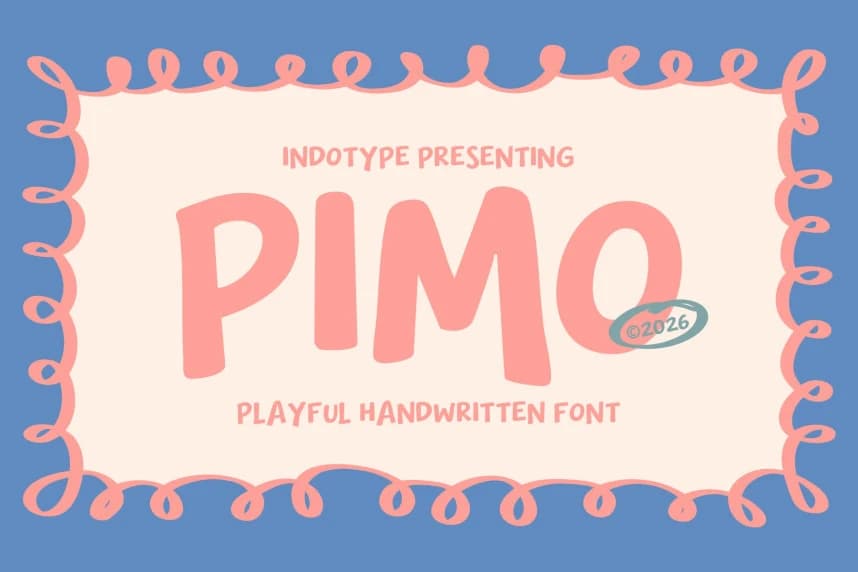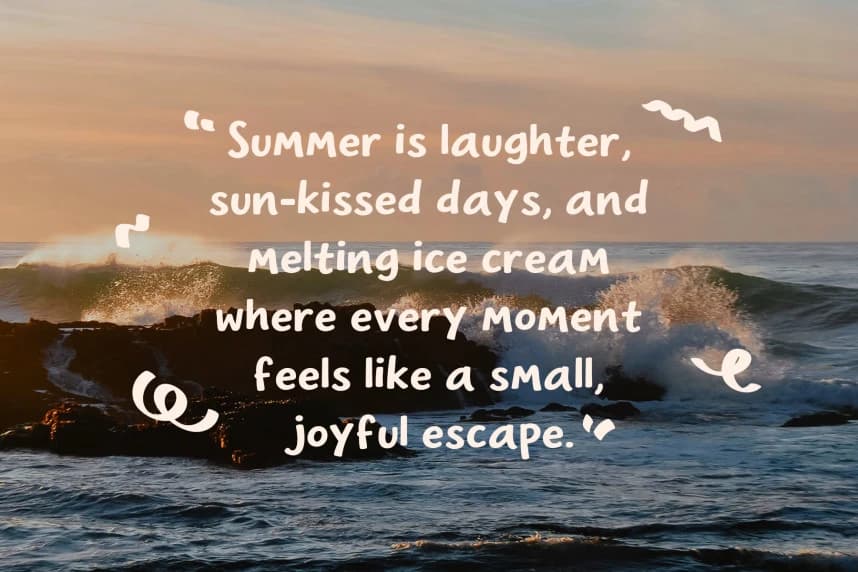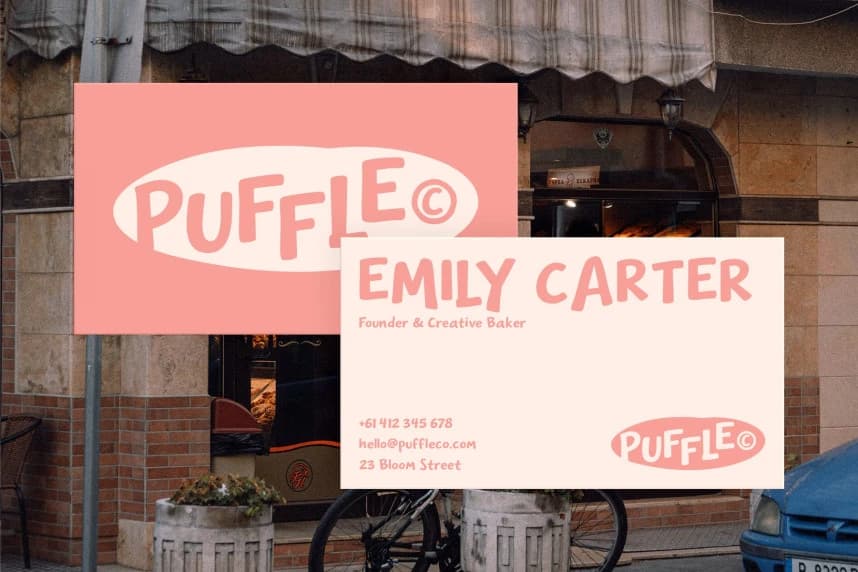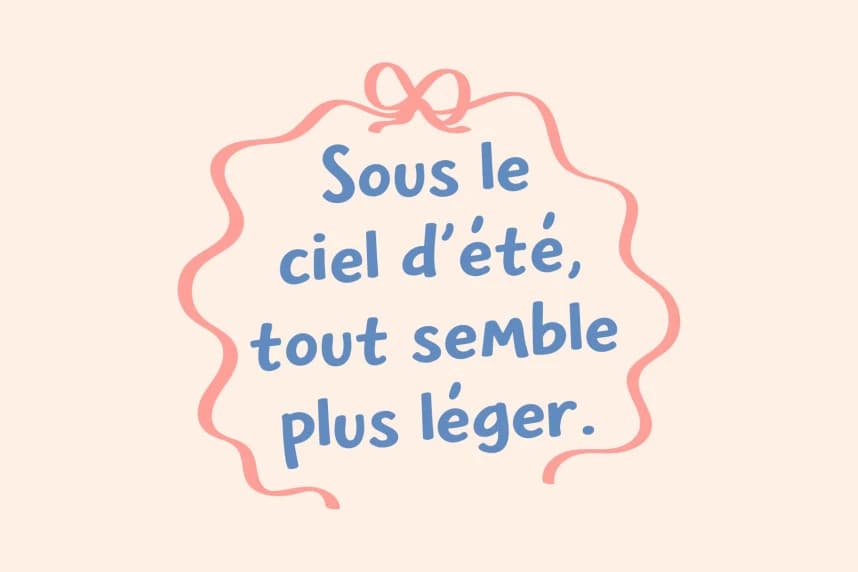
Pimo Playful Font
Pimo Playful Font is a playful handwritten display font overflowing with joy, innocence, and creative energy. Designed by Indotype, Pimo captures the uninhibited spirit of a child’s best handwriting — the kind written with a thick marker on a good day